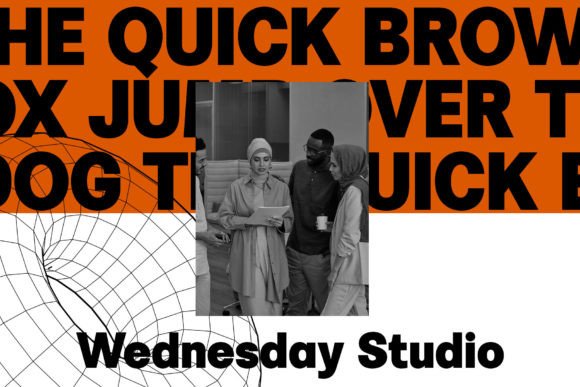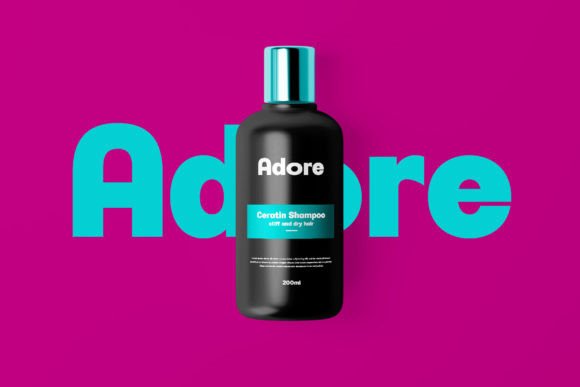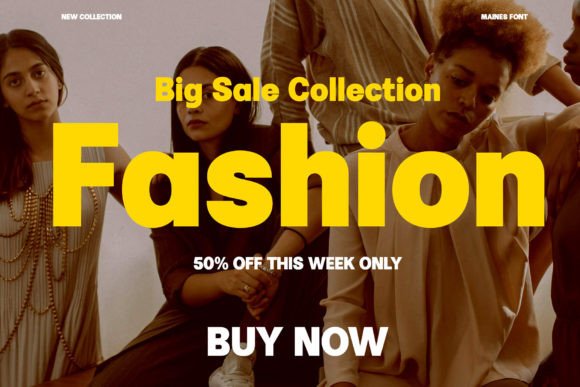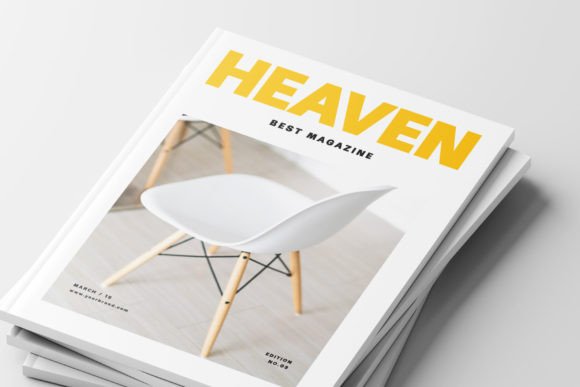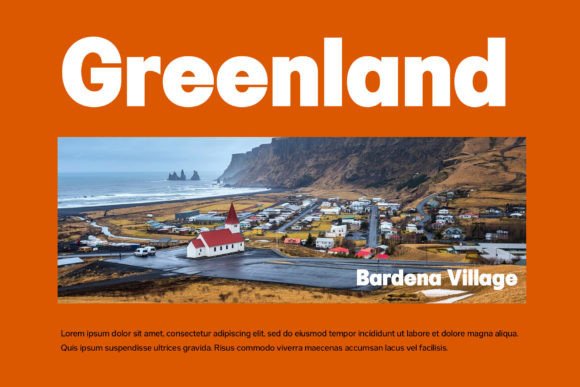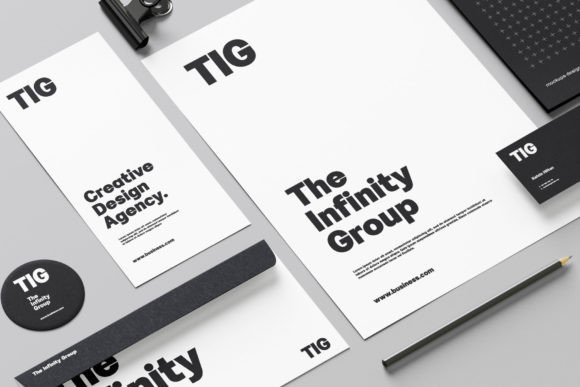
Introduction to Moneis Font
Have you ever stared at a blank canvas, waiting for the perfect font to bring your creative vision to life? For designers, finding the right font can be a daunting task, especially when working on high-profile projects. But what if you had a font that not only met your expectations but exceeded them? Enter Moneis Font, a modern grotesque font that combines geometric details with industrial design principles, making it the perfect choice for any creative endeavor.
With its versatility and elegant touch, Moneis Font is a valuable resource for designers looking to add a professional touch to their projects. Whether you’re working on a logo, advertisement, or corporate brand, this font is sure to make a statement. And the best part? It’s available for free download, making it an accessible design resource for creatives of all levels.
Key Features of Moneis Font
- Includes multiple font styles, including regular, bold, and italic, to cater to diverse design needs.
- Designed with a modern aesthetic, Moneis Font is perfect for creating visually appealing and professional-looking designs.
Honest Review: Moneis Font
As a designer, I’m always on the lookout for high-quality design resources to elevate my creative projects. Recently, I stumbled upon the Moneis Font, and I’m excited to share my honest review with you.
- ✨ High-quality typography with a sleek, modern aesthetic
- ✨ Perfect for use with a transparent background to add a touch of sophistication to any design
I was impressed by the Moneis Font’s versatility and range of applications. From web design to print materials, this font is a great addition to any designer’s toolkit.
- ⚠️ Limited character set, which may not be suitable for projects requiring extensive typing
- ⚠️ Some users may find the font’s modern style too trendy for certain design applications
Overall, I’m pleased with the Moneis Font and would recommend it to designers looking for a high-quality, modern font for their creative projects.
Common Use Cases for Moneis Font
Moneis Font is ideal for use in creative projects such as logos, brochures, and business cards. Its high-quality features make it perfect for presentations, documents, and website design.